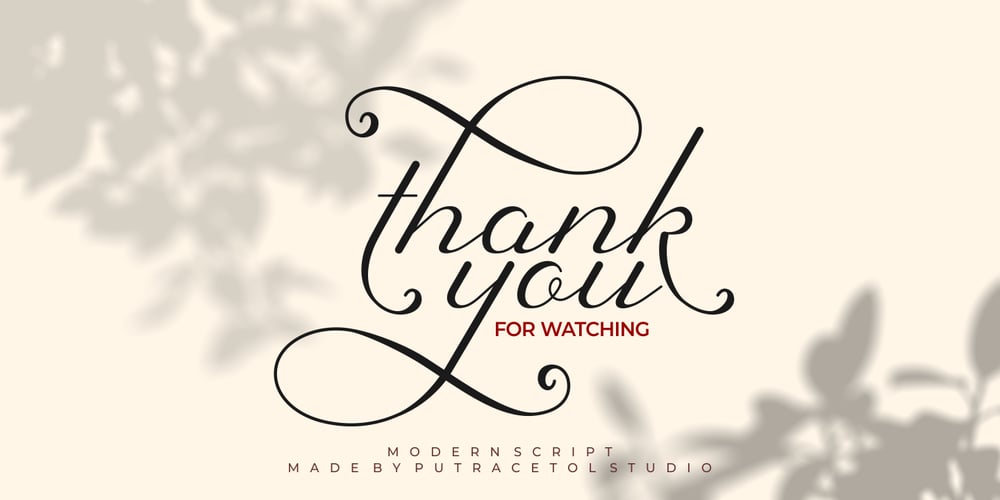
Sherley Font Family was designed by Putra Novembria Candra Kusuma and published by Putracetol. Sherley contains 1 styles and family package options. Introducing Sherley, a new elegant script font, lovely and sweet. Sherley is perfect for styling logos, stationery, wedding event, invitation, quote, social media, websites and so much more! Sherley comes with Opentype feature and a lot of alternates to help you make great lettering. Also supports multi language.